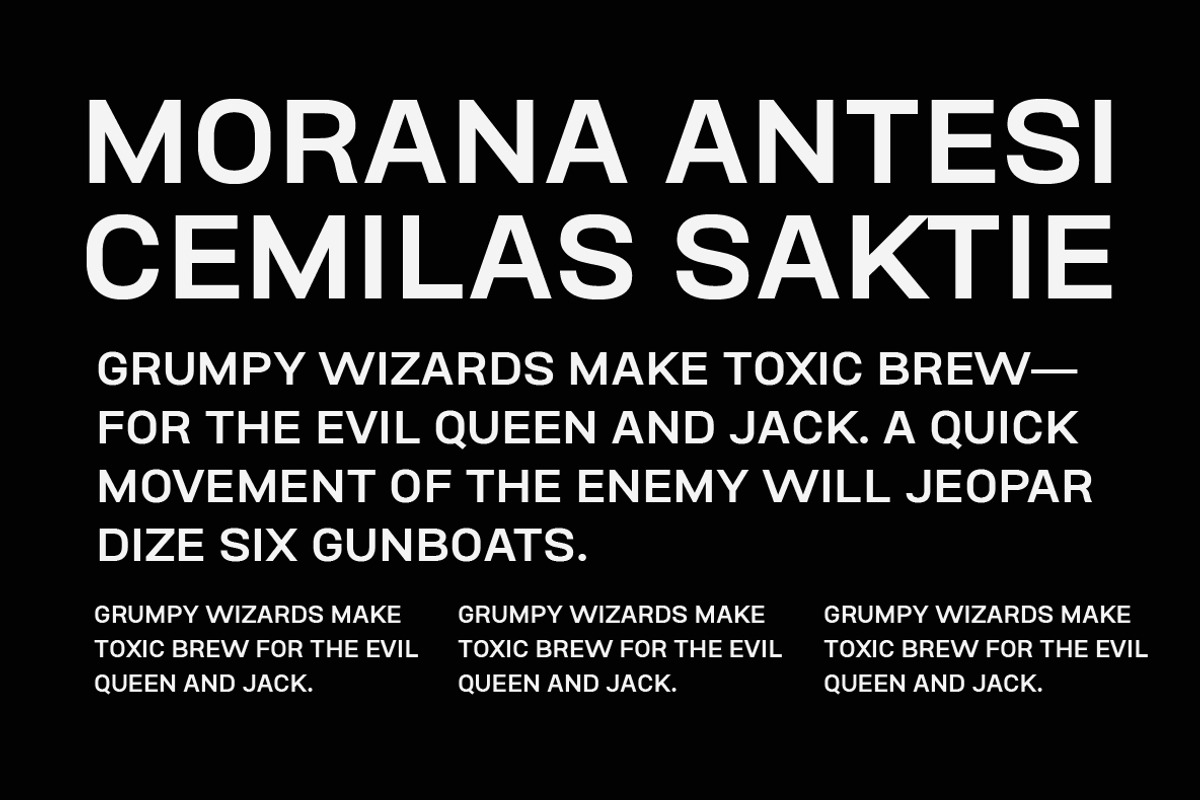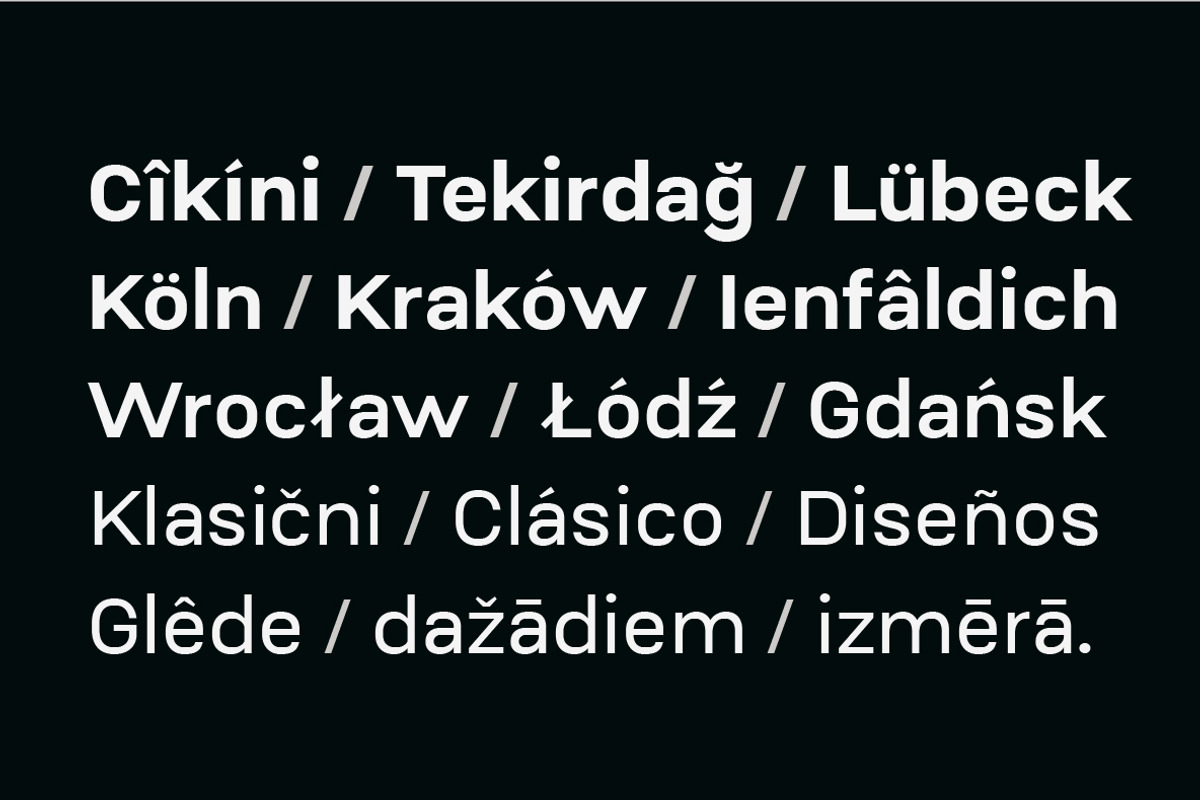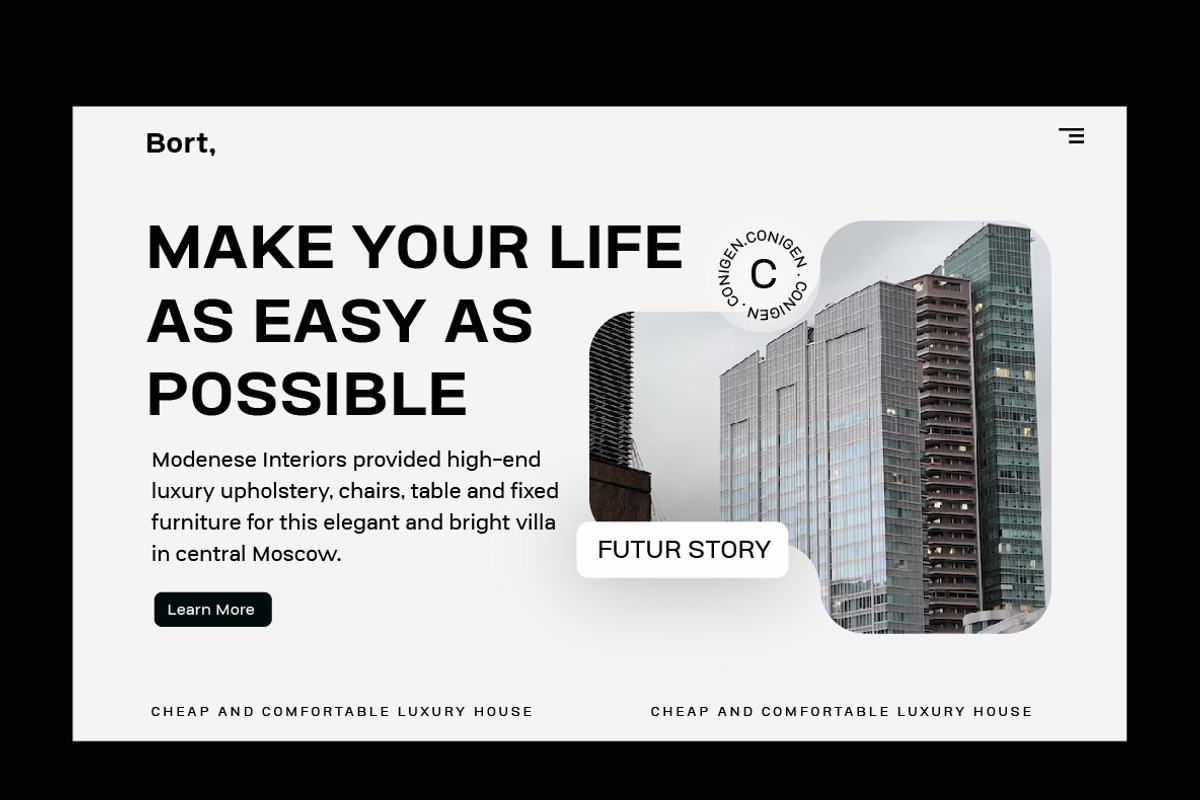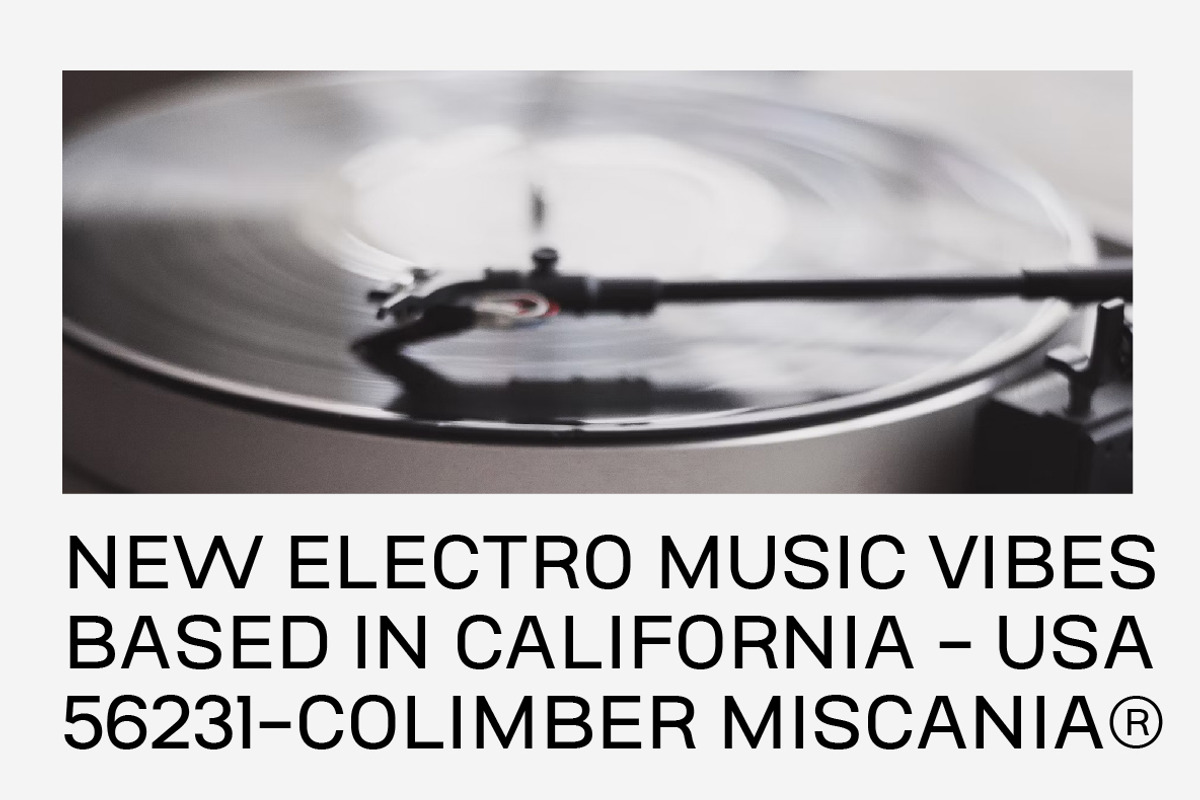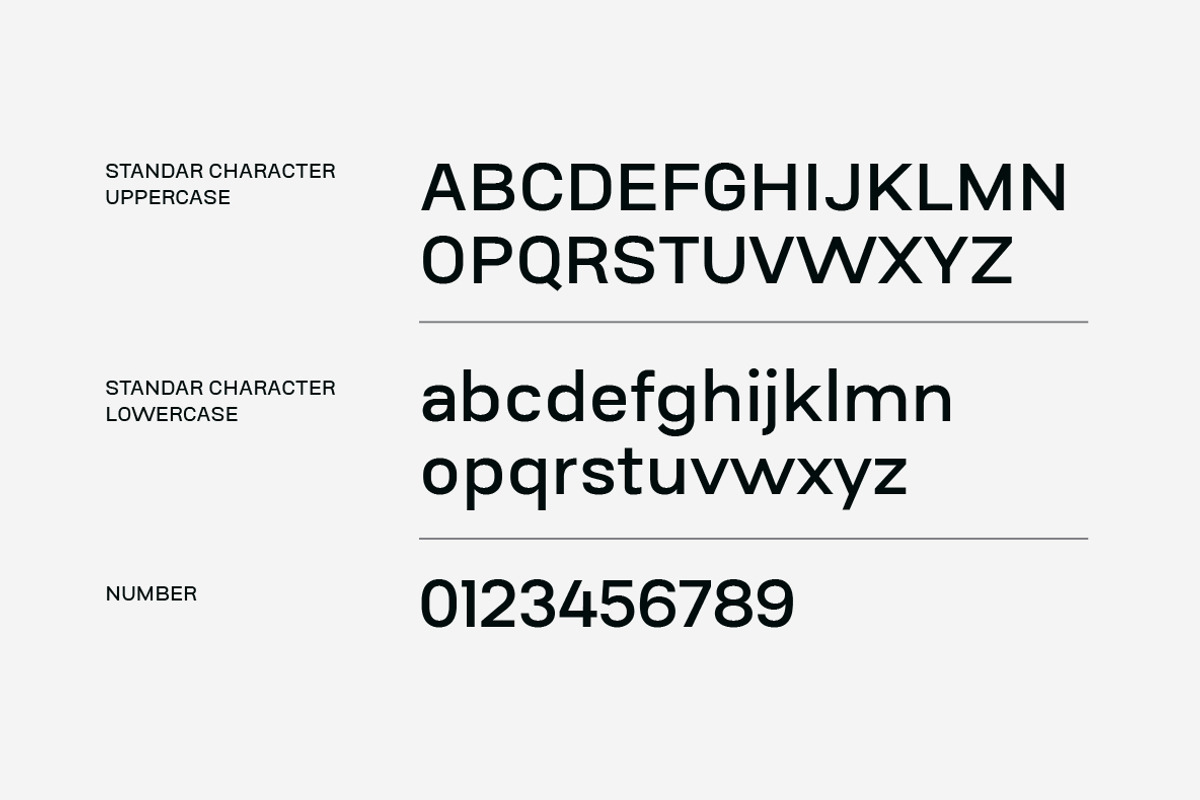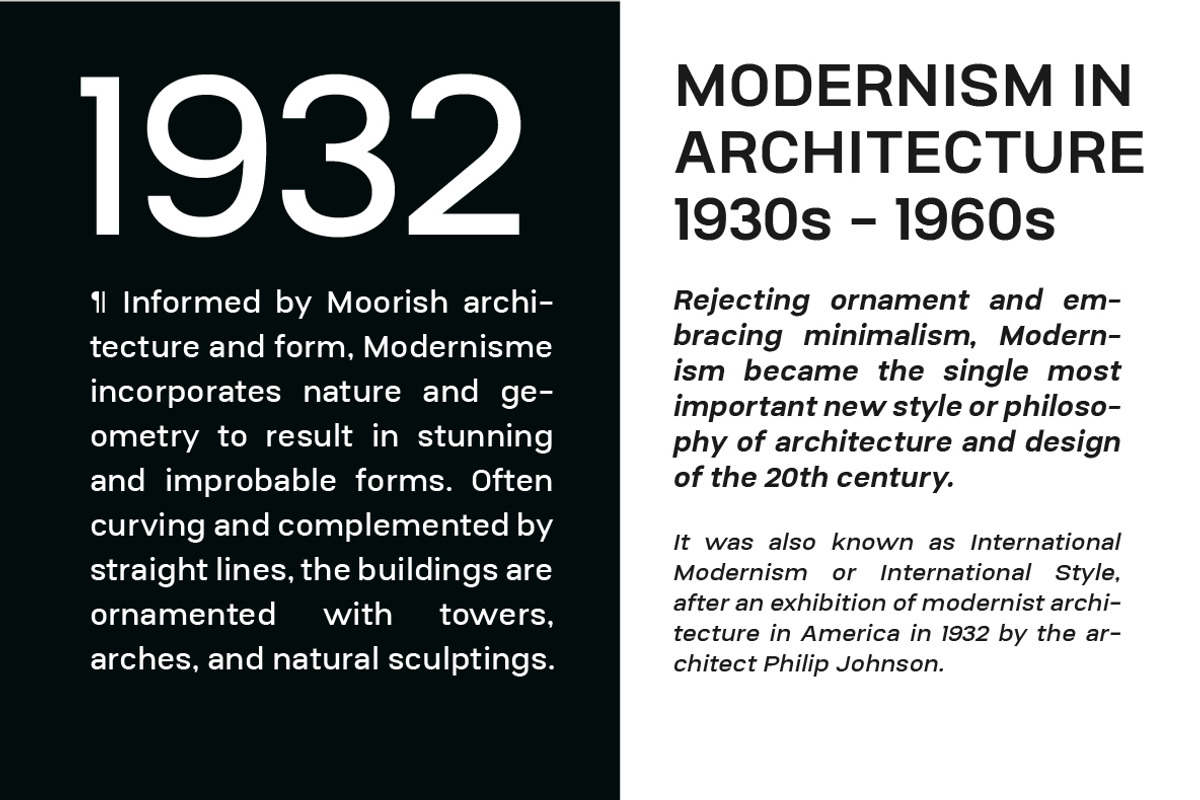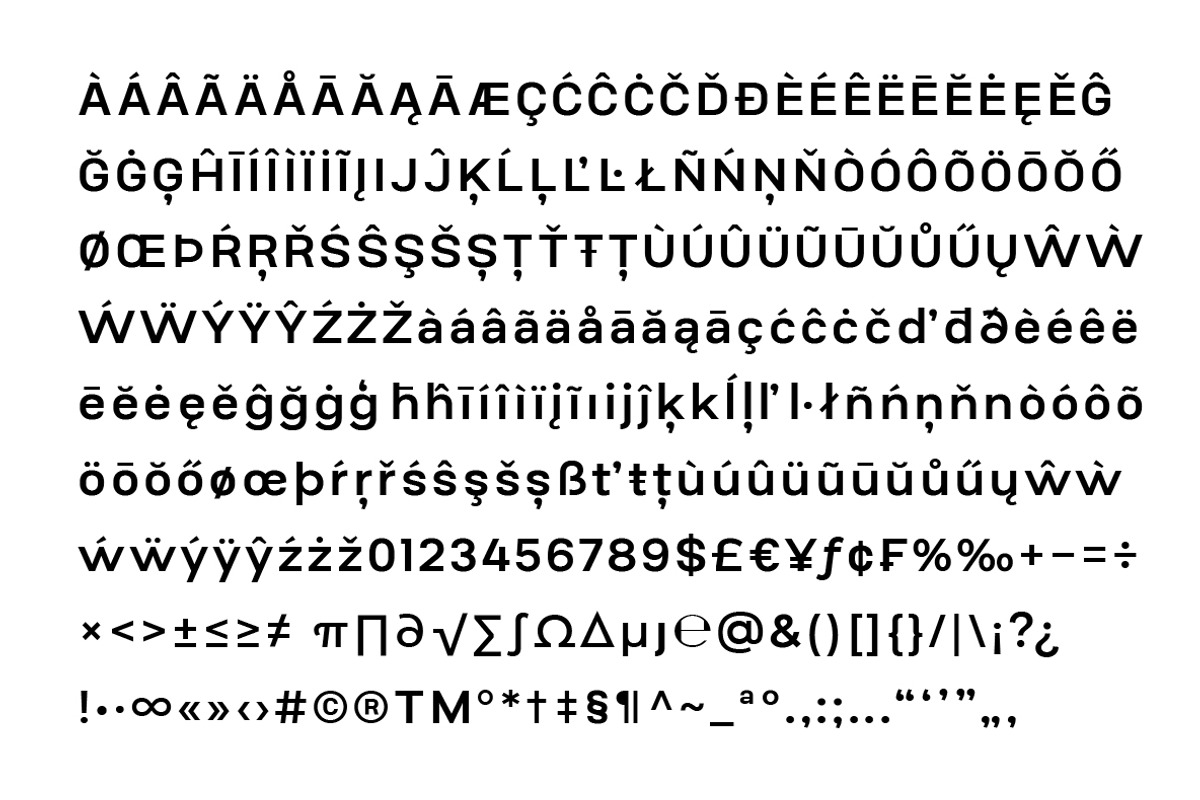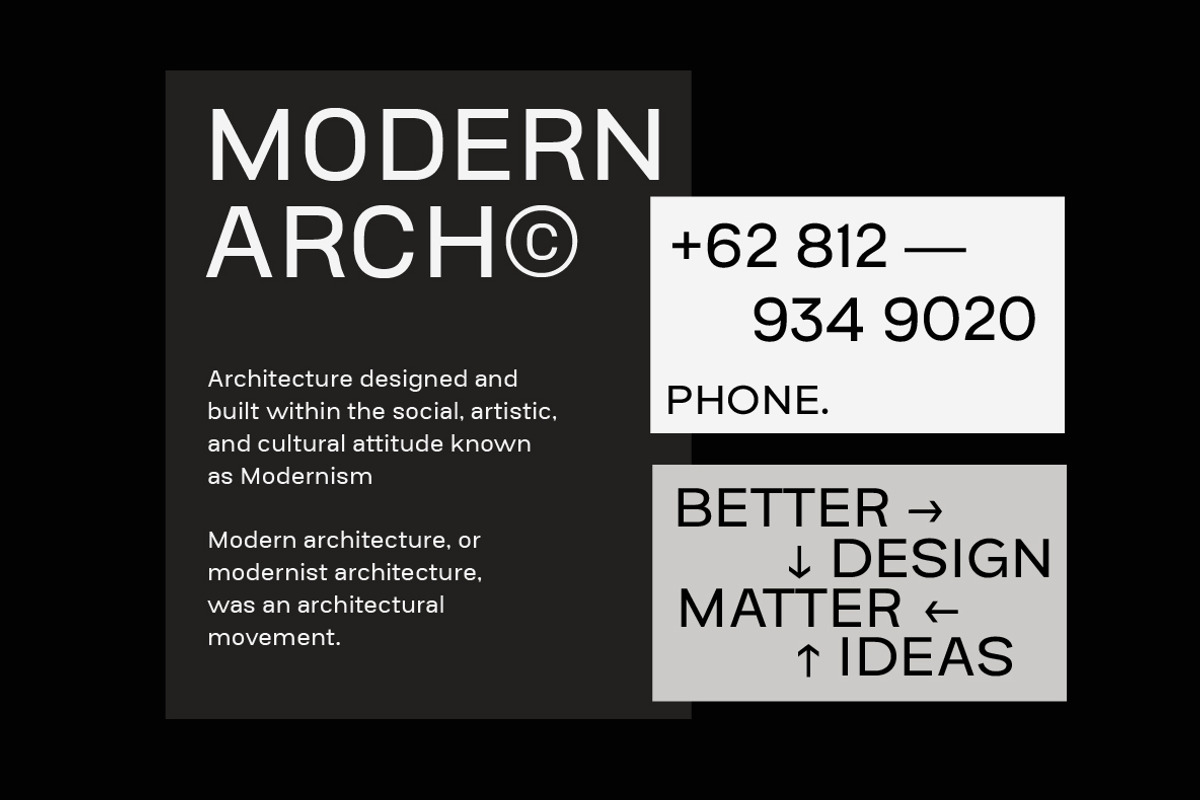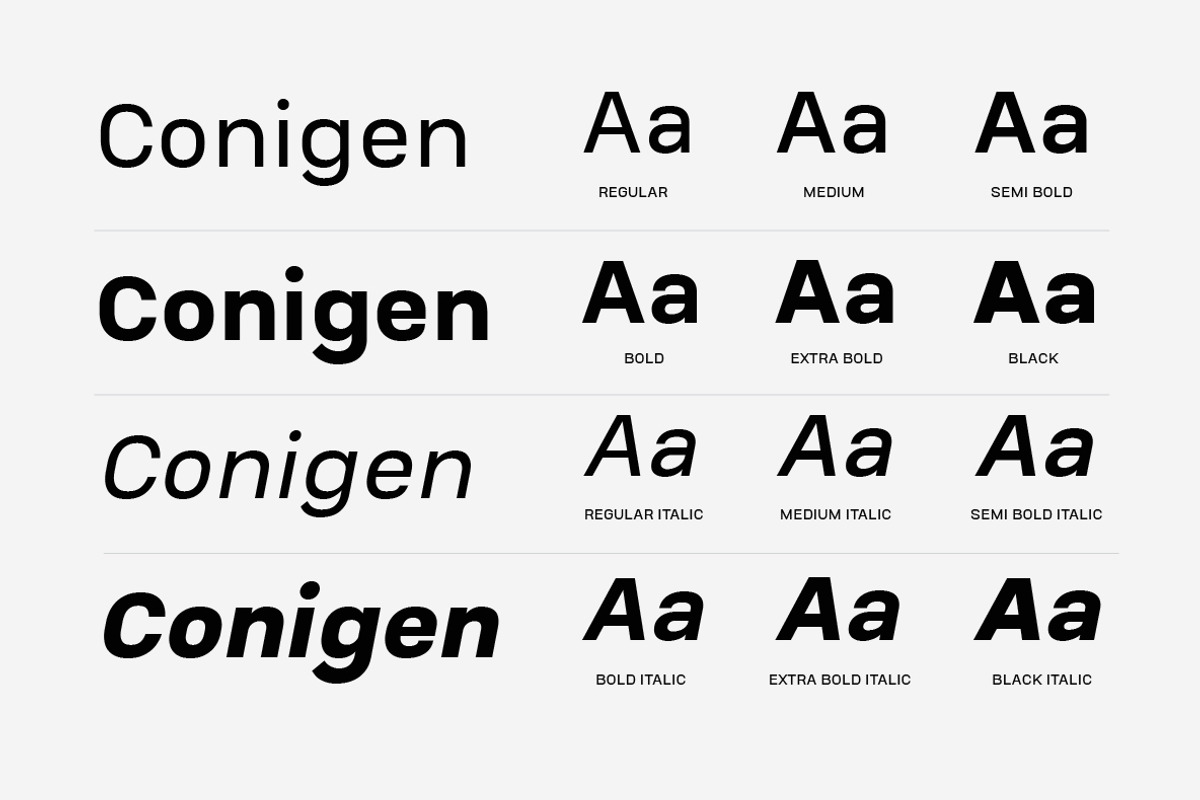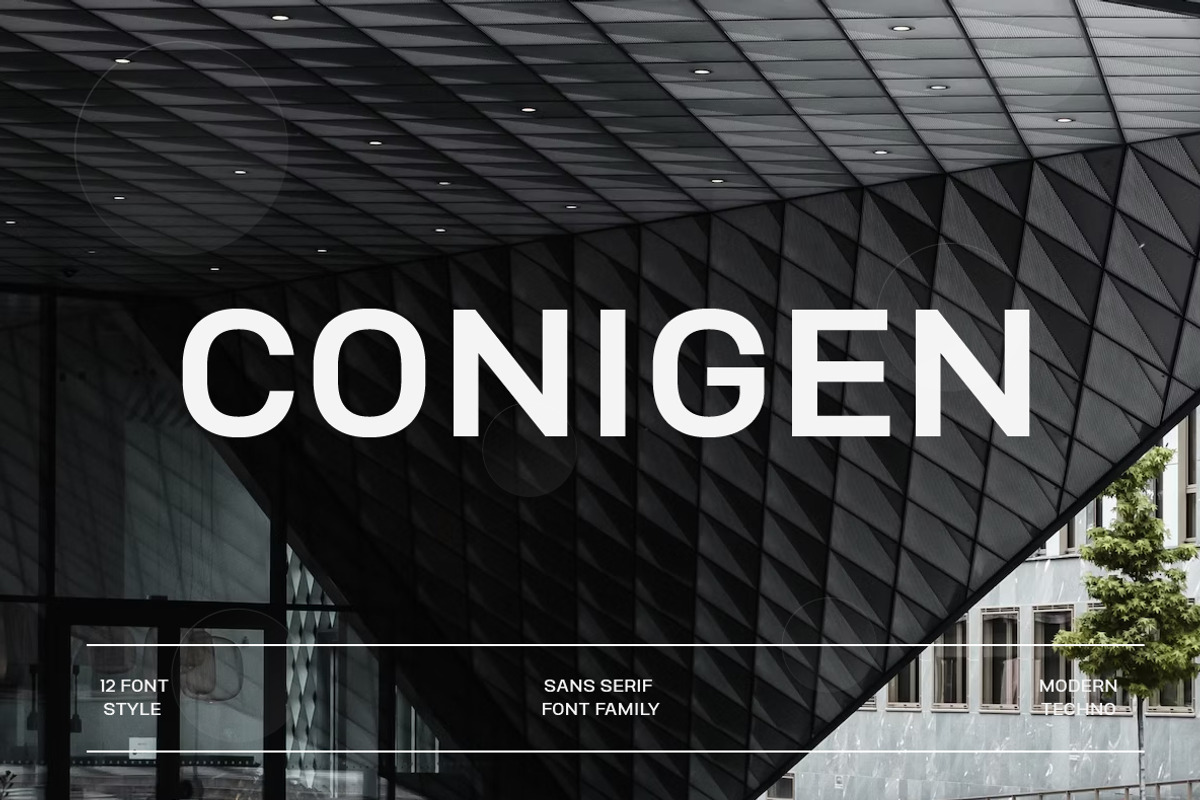
Conigen Modern Sans Serif
Conigen Modern is a modern typeface that looks both futuristic and contemporary. The lines are sharp and clean with an aerodynamic shape that exudes a modern and technologically advanced feel. Perfect for technology design and branding. This font is simple and clean, making it easy for the designer to convey a message to the design without confusing the viewer too much. Conigen Modern gives a professional and innovative impression.
There are 12 fonts from Regular to Black and italic fonts are also available